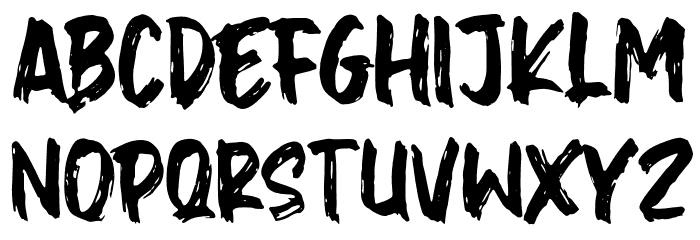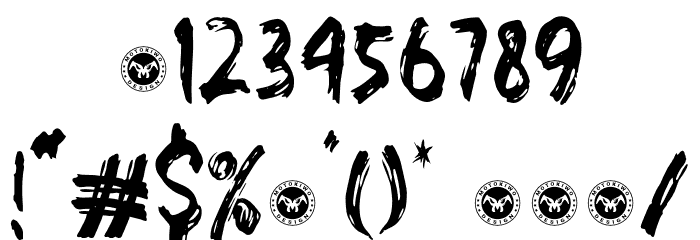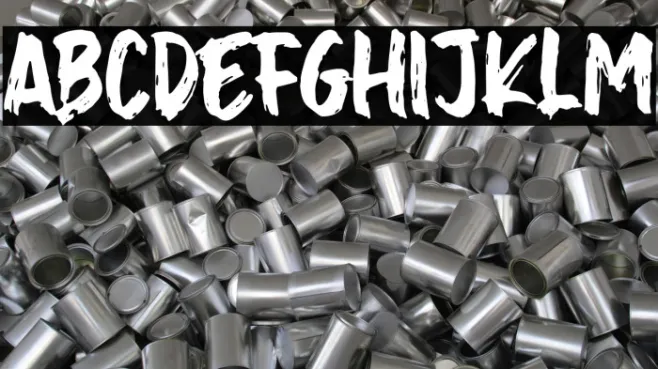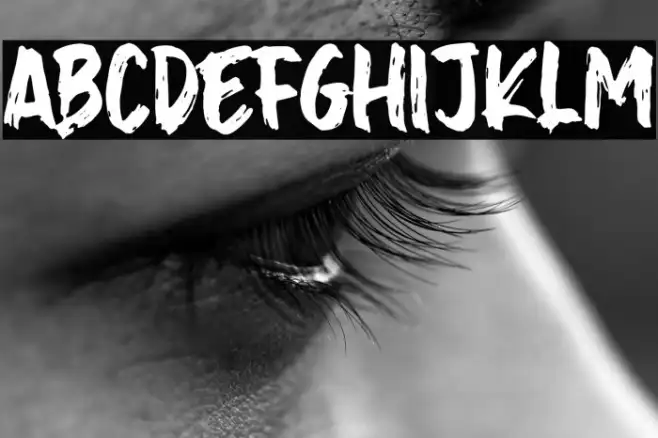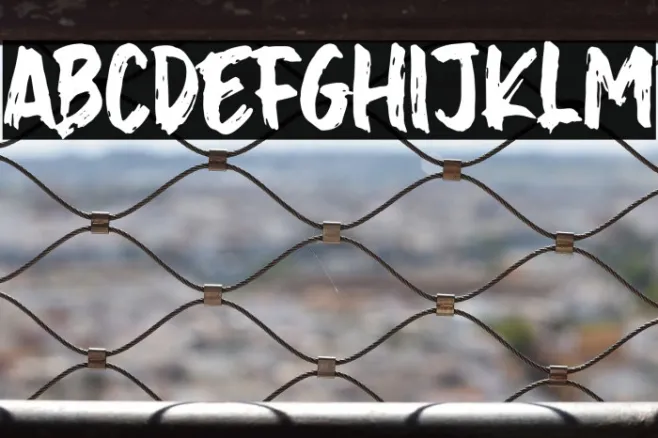
Balibrush Font
This font exudes a bold and energetic brushstroke style, characterized by its rough, textured edges and dynamic flow. The uppercase and lowercase letters maintain a consistent thickness, giving the font a cohesive and robust appearance. The numerals and special characters follow the same aesthetic, ensuring uniformity across all elements. Its hand-painted look adds a personal and artistic touch, making it ideal for projects that require a strong visual impact. The font's irregularities and imperfections contribute to its charm, offering a sense of authenticity and creativity.
A bold, brushstroke font with a dynamic and textured appearance.
- Font: Balibrush
- Proposed Projects: Ideal for posters, branding, album covers, and creative projects that require a bold, artistic touch.